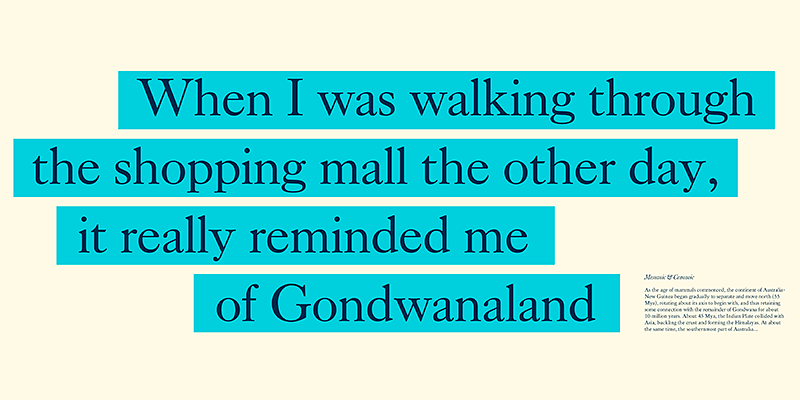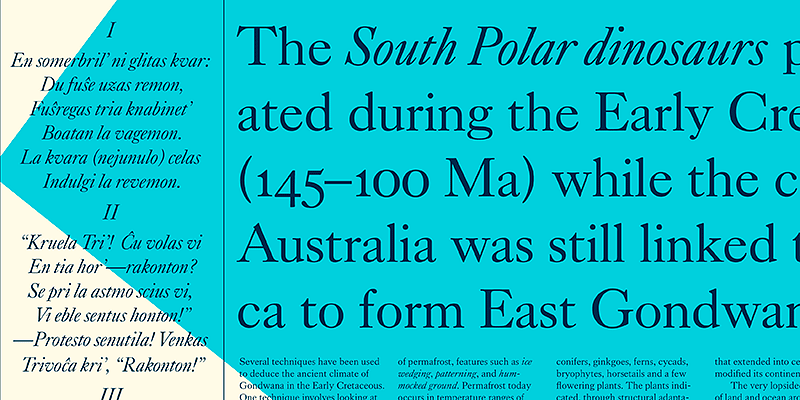
King’s Caslon is an elegant revival of the Caslon tradition. With four Text styles and two Display styles, all featuring a now iconic ampersand, classical sophistication is brought to any project.